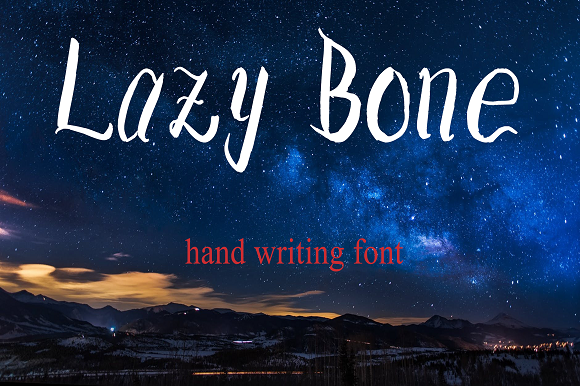
Lazy Bone Font
The Lazy Bone is a fun, bold font with a fresh & modern style. It’s suitable for logos, branding, greeting cards, posters and any other design that needs a fun typeface.